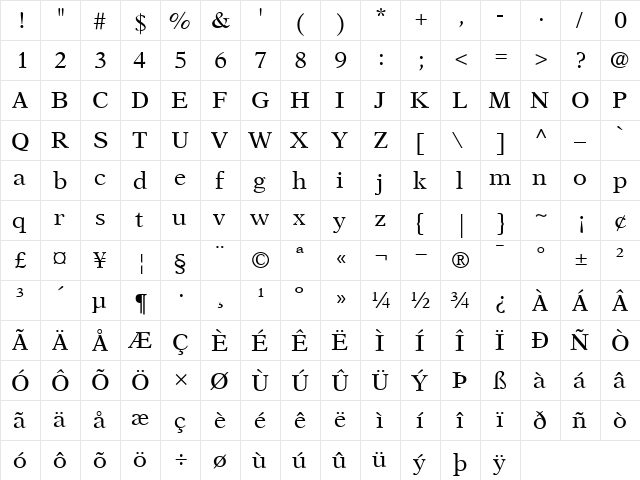
NewAsterRoman Roman
Design Context for NewAsterRoman Typeface
NewAsterRoman is a composed and adaptable typeface that performs quietly and consistently across a wide range of design contexts.
Pro Tip: Use NewAsterRoman in both headline and body roles to test its range before committing to a single application.